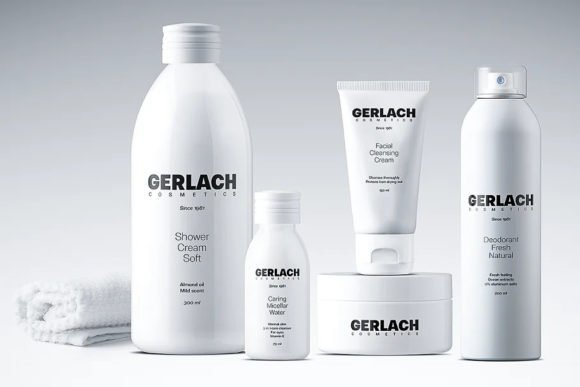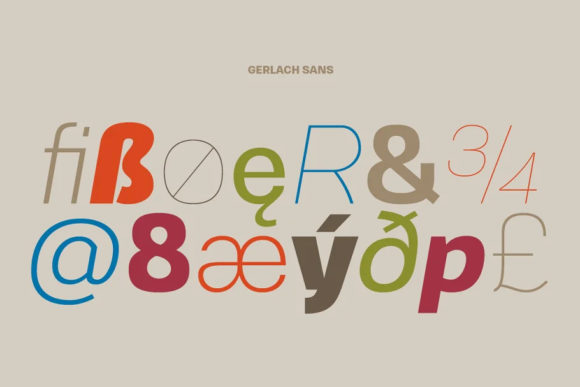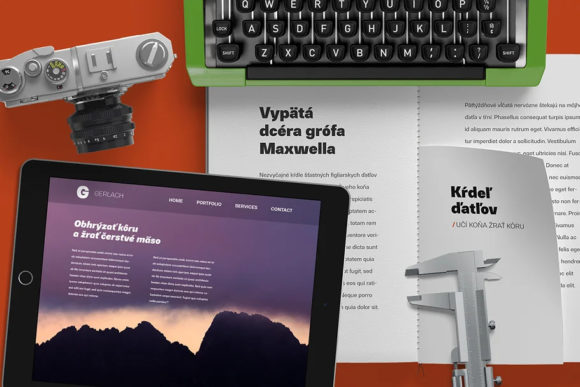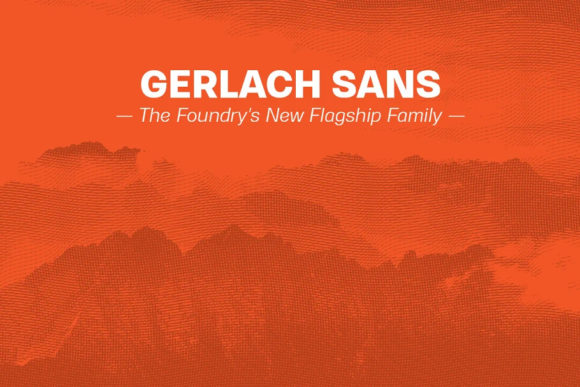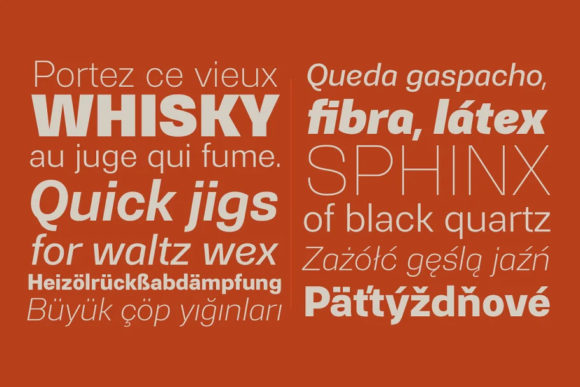
Gerlach Sans Font: Elevate Your Design with Elegance and Versatility
In the world of typography, a well-crafted font can elevate a design from ordinary to extraordinary. Gerlach Sans, designed by Juraj Chrastina, is a stunning sans serif font family that embodies the perfect blend of functionality and elegance. As the flagship family of the foundry, Gerlach Sans has been named after the highest peak in Slovakia, reflecting its robust and versatile nature.
A Family of 16 Styles: Versatility at Its Best
Gerlach Sans boasts an impressive 16 styles, ranging from delicate hairline to super-thick black, along with eight weights and their corresponding genuine italic companions. This extensive range allows designers to experiment with various visual hierarchies, making it an ideal choice for a wide range of design applications, from elegant editorials to bold advertising campaigns.
Subtle yet Playful: The Design Philosophy
Gerlach Sans’s design is characterized by a functional approach, subtly enhanced by a few distinctive ingredients that add life and give words a more playful voice. The typeface seamlessly combines the legibility and usability of its grotesque style with a cool, elegant flair, making it a strong partner for designers seeking to create visually stunning content.
OpenType Features: A Wealth of Opportunities
Gerlach Sans comes with an extensive character set, accessible through OpenType features, providing designers with a vast array of opportunities to experiment with typography. The font includes:
• Tabular and proportional figures
• Old-style and lining figures
• Fractions
• Superscripts and subscripts
• Ordinals
• Case-sensitive forms
• Circled numbers
• Arrows
• Icons
This extensive feature set supports a wide range of Latin-based languages, ensuring that designers can work with confidence, knowing that their typography needs will be met.
What Makes Gerlach Sans Stand Out?
Gerlach Sans’s unique blend of grotesque and elegant features makes it an exceptional choice for designers seeking a versatile font family. Its key benefits include:
• Exceptional legibility and usability
• Cool, elegant aesthetic
• Extensive character set and OpenType features
• Wide range of weights and styles
• Support for multiple Latin-based languages
Applications for Gerlach Sans
Gerlach Sans’s versatility makes it suitable for a wide range of design applications, including:
• Editorials and magazines
• Advertising and branding campaigns
• Web design and digital media
• Packaging and product design
• Print materials and signage
Author Juraj Chrastina
Gerlach Sans, designed by Juraj Chrastina, is an exceptional sans serif font family that offers a perfect blend of functionality, elegance, and versatility. With its extensive range of weights and styles, OpenType features, and support for multiple languages, Gerlach Sans is an ideal choice for designers seeking to elevate their designs and create visually stunning content. Whether you’re working on a delicate editorial or a bold advertising campaign, Gerlach Sans is sure to become a trusted partner in your design endeavors.